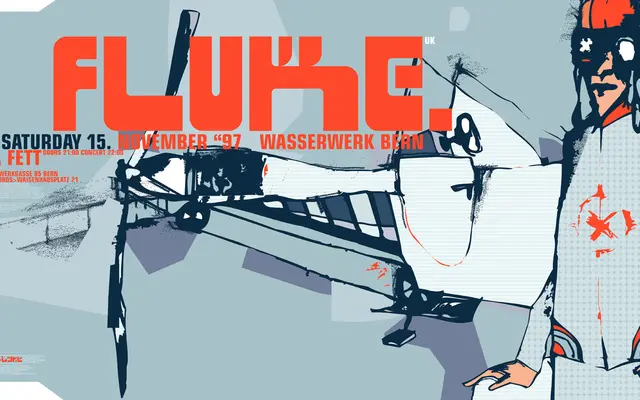
BD Fluke
Type Different · 2012
A bold display face originally drawn for a 1997 Fluke concert poster at Club Wasserwerk in Bern, released as a free font in 2012.
Created as a one-off piece of concert graphics in 1997, the typeface sat dormant for fifteen years before being released as a free font. It covers Basic Latin only, with a single Regular weight and no italic. Personal use is free; commercial projects require a licence.
A bold, single-weight display typeface originally drawn for a concert poster, with no italic and a raw, utilitarian character typical of late-1990s club graphics.